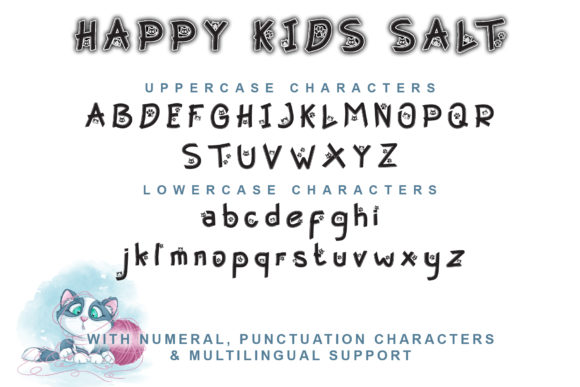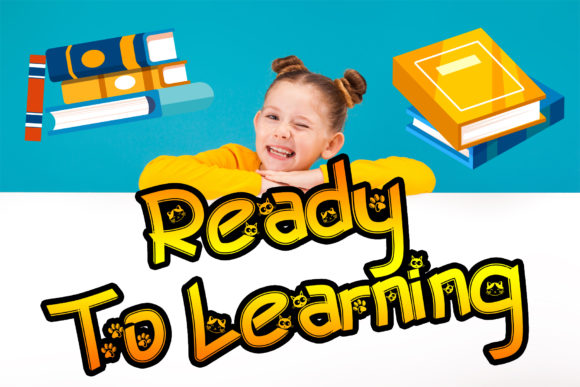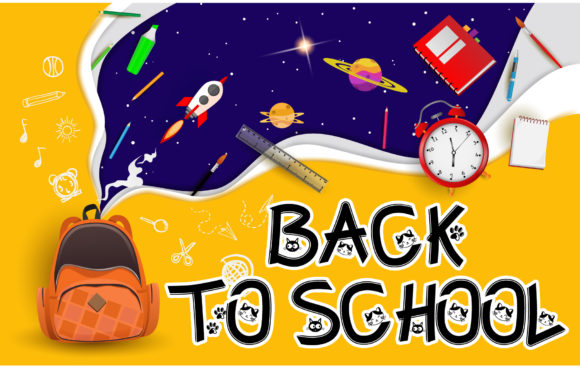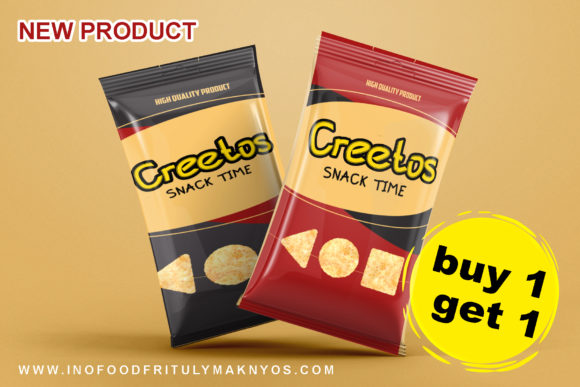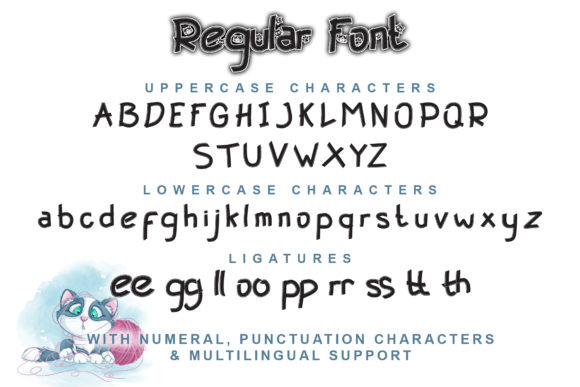
Introducing Happy Kids Font: The Perfect Addition to Your Kids’ Projects
Are you a designer, crafter, or parent looking for a fun and playful font to add a special touch to your kids’ projects? Look no further than Happy Kids Font! This whimsical handwritten font features sweet animals-themed characters that are sure to bring a smile to any child’s face. In this article, we’ll dive into the world of Happy Kids Font and explore its features, benefits, and uses.
What is Happy Kids Font?
Happy Kids Font is a unique and charming font that is designed to capture the imagination of kids and adults alike. Its childlike playfulness makes it perfect for kids’ projects, school assignments, and even crafty DIY endeavors. The font features a range of sweet animals-themed characters, including adorable critters like rabbits, bears, and monkeys.
Key Features of Happy Kids Font
- Whimsical Handwritten Style: Happy Kids Font boasts a playful, handwritten style that is sure to add a personal touch to any project.
- Animals-Themed Characters: The font features a range of sweet animals-themed characters, including rabbits, bears, monkeys, and more.
- Childlike Playfulness: Happy Kids Font is designed to evoke a sense of childhood wonder and playfulness, making it perfect for kids’ projects and school assignments.
Benefits of Using Happy Kids Font
So why choose Happy Kids Font for your kids’ projects? Here are just a few benefits of using this delightful font:
- Adds a Personal Touch: Happy Kids Font adds a personal touch to any project, making it feel more handmade and special.
- Encourages Creativity: The font’s playful style encourages creativity and imagination, helping kids to think outside the box and express themselves in new and exciting ways.
- Perfect for Kids’ Projects: Happy Kids Font is specifically designed for kids’ projects, making it the perfect choice for school assignments, craft projects, and more.
Uses for Happy Kids Font
So what can you use Happy Kids Font for? The possibilities are endless! Here are a few ideas to get you started:
- Kids’ School Projects: Use Happy Kids Font to add a playful touch to school assignments, such as book reports, science projects, and more.
- Craft Projects: Happy Kids Font is perfect for crafty DIY projects, such as making cards, gift tags, and other handmade items.
- Design Projects: Designers can use Happy Kids Font to add a playful touch to design projects, such as brochures, posters, and more.
Tips for Using Happy Kids Font
Here are a few tips for using Happy Kids Font:
- Experiment with Different Sizes: Try using Happy Kids Font in different sizes to add visual interest to your projects.
- Combine with Other Fonts: Combine Happy Kids Font with other fonts to create a unique and eye-catching look.
- Use for Headings and Titles: Use Happy Kids Font for headings and titles to add a playful touch to your projects.
In conclusion, Happy Kids Font is a delightful and playful font that is perfect for kids’ projects, school assignments, and crafty DIY endeavors. Its whimsical handwritten style and sweet animals-themed characters make it a joy to use, and its ease of use makes it accessible to designers, crafters, and parents of all skill levels. So why not give Happy Kids Font a try and add a special touch to your kids’ projects?